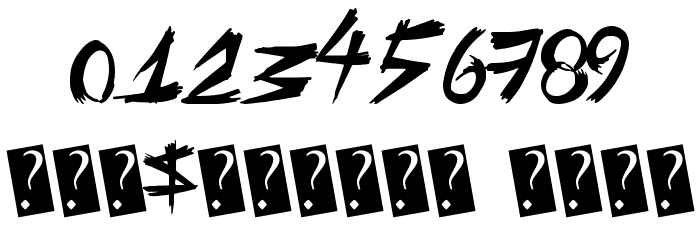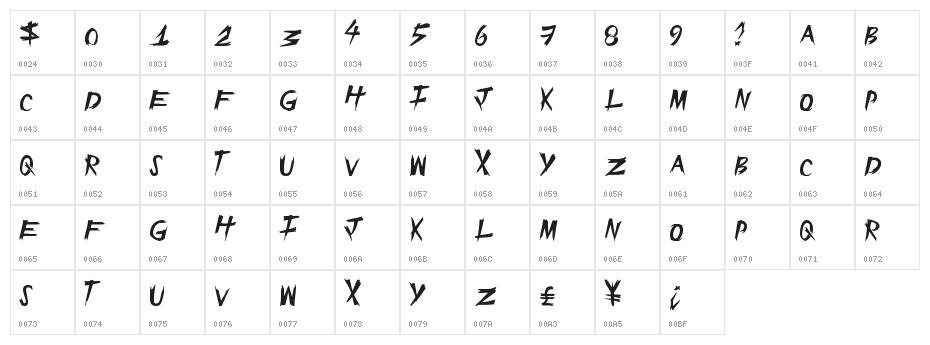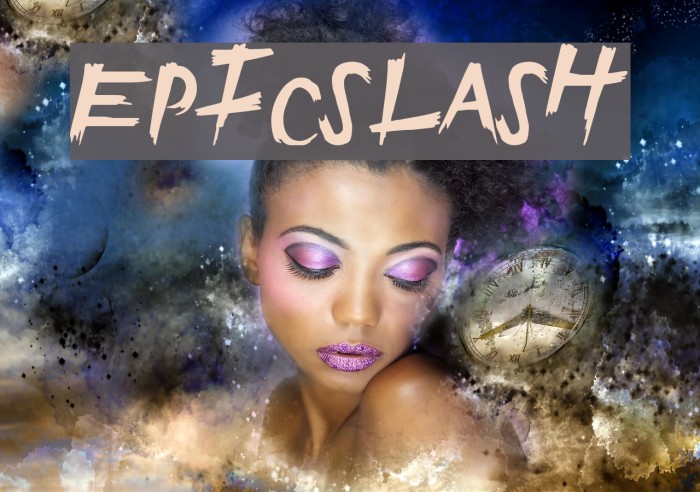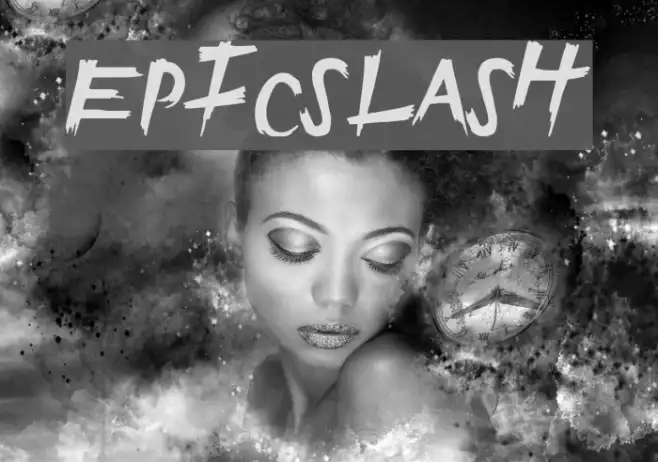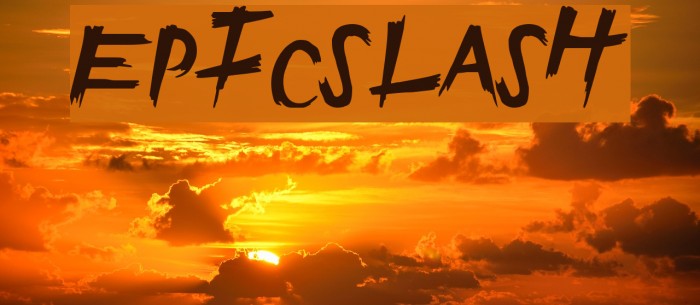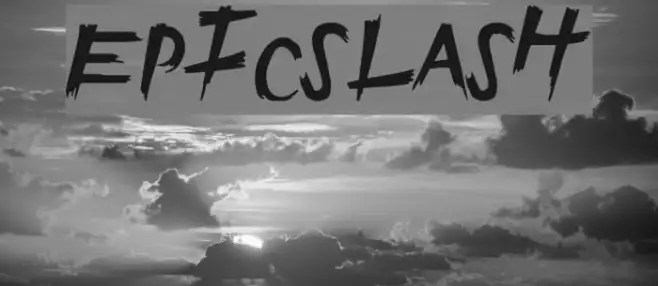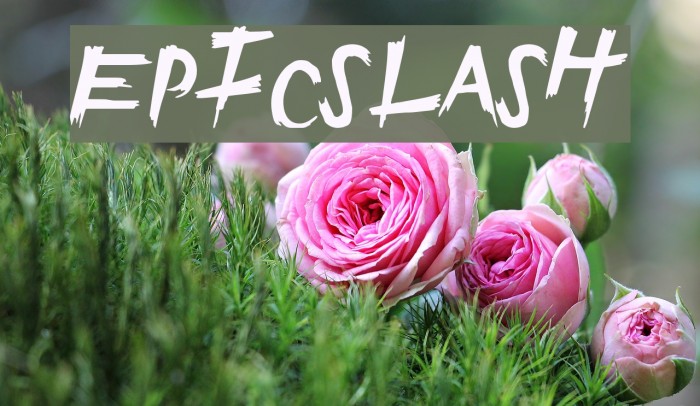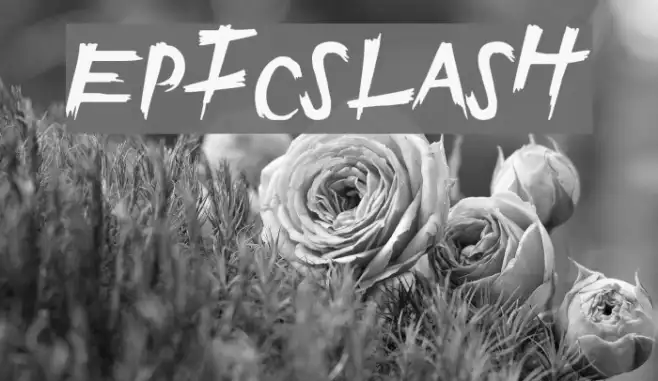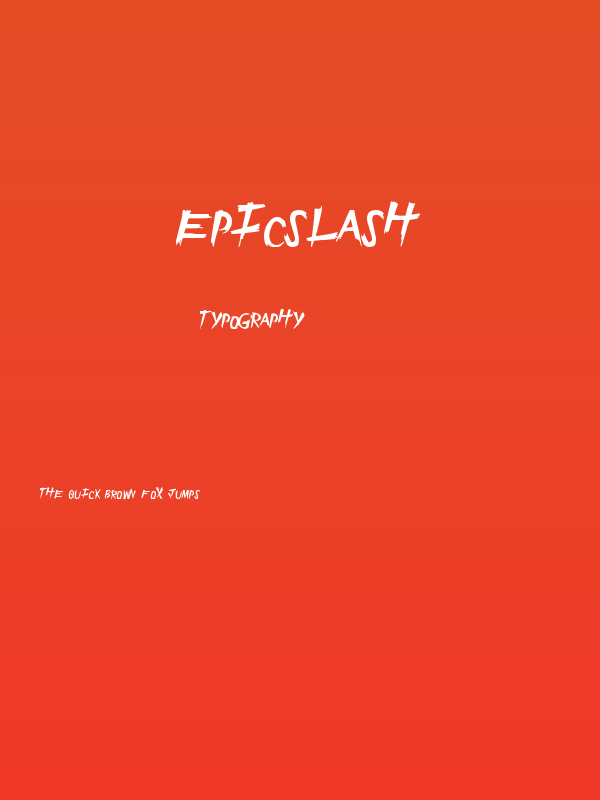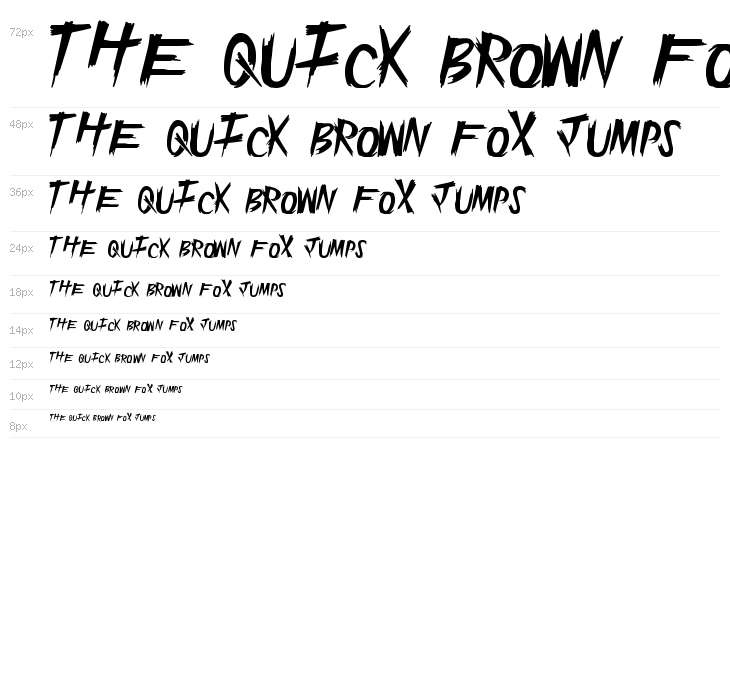
EpicSlash Font
EpicSlash Description
This font features a bold and dynamic style with sharp, jagged edges that give it an aggressive and energetic appearance. The strokes are uneven, creating a sense of movement and intensity, reminiscent of slashes or brush strokes. The uppercase and lowercase letters maintain a consistent style, with exaggerated angles and a slightly chaotic feel. The numbers and special characters follow the same design principles, ensuring a cohesive look across all glyphs. This font is ideal for projects that require a strong, impactful visual presence.
| Overall Style | Modern, Energetic |
| Use Case | Logos, Posters, Headlines |
| Proposed Projects | Perfect for music album covers, sports team logos, action movie posters, and edgy branding materials. |